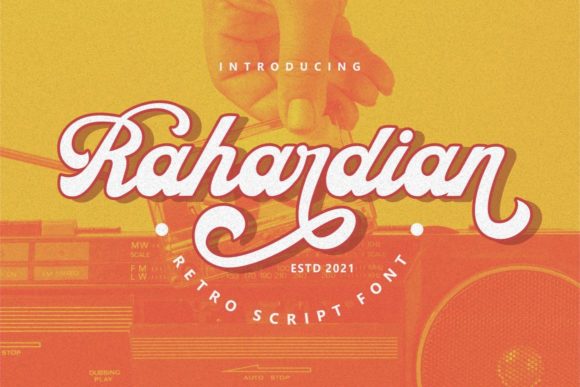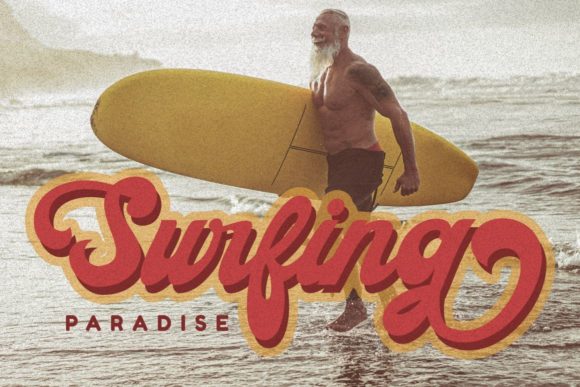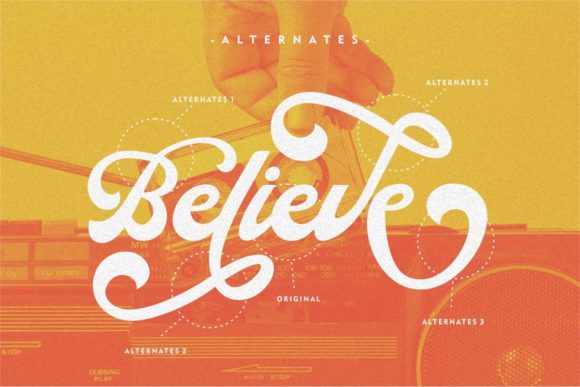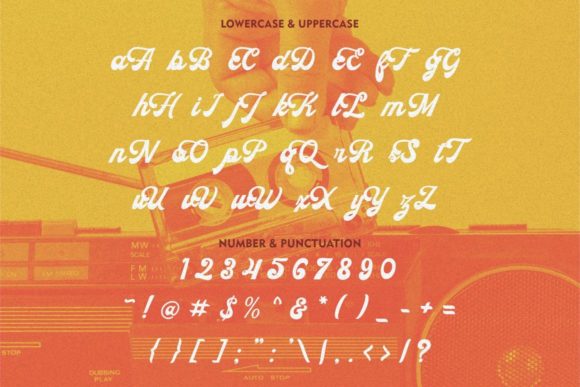
About Rahardian Font
Rahardian is a gorgeous, retro and cursive handwritten font, crafted to give your headlines and logotype projects a stylish touch. This font reads as strong, confident, and dynamic and can add tons of nostalgic character to your designs. Rahardian is PUA encoded which means you can access all of the glyphs and swashes with ease!